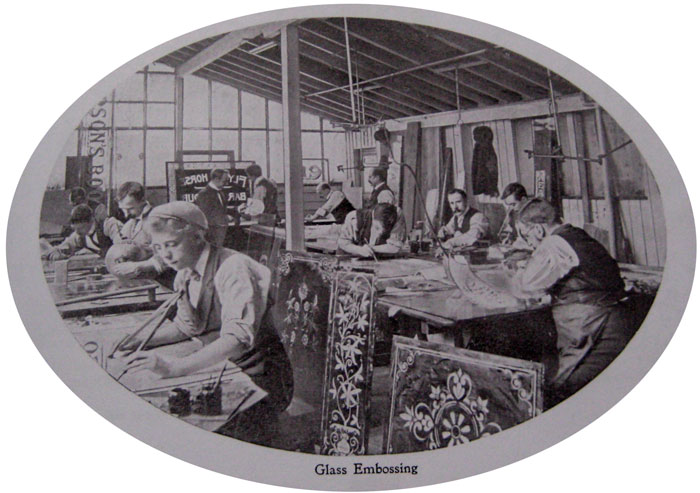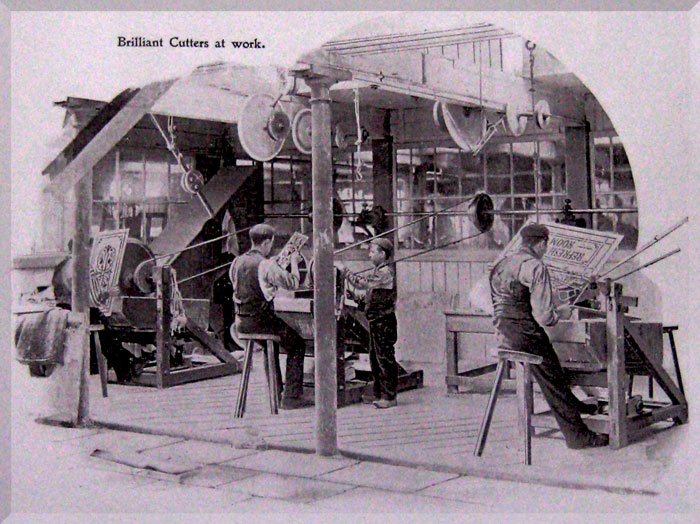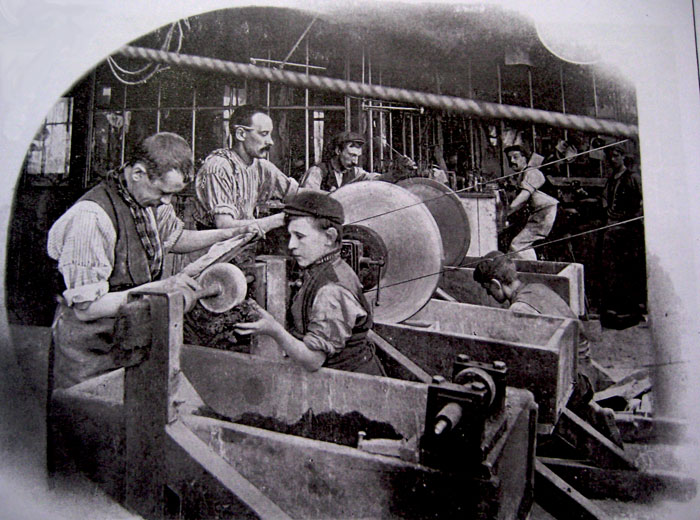
Brilliant Cutters 100 years ago
I seen these nostalgic images of Brilliant Cutting and Acid Etching in a book I recently bought. Thought you guy's may like to see them as I seen an earlier post on interests with cutting lathes. image 2 .The cutting benches are the same as the one I have and Stuart also has this setup, nothing seems to have changed except we have electricity to run the pullies. I would imagine the youg lads went on to be pretty dam good cutters they look like they were there to apply the polish for the wood wheels. Notice the cut lead ontop of the brunswick black in image 1 ready for embossing. image 3 is interesting as you can see the power for the shafts come off a main drive at the back ,i'm guessing this may have all been steam powered. Stuart would know alott more than me as he served his apprentiship in this trade with some old timers. Pat also has extended knowledge to what went on.
Hopefully they can cover the past and facts in these bygone pics a bit more than me. Dave
Do you notice that allmost every cutter has his little boy who's only task was keeping the wheel cool ad moist?
I think the kids were supposed to learn, learn and absorbe some more learning, just by looking, before being given the change to cut flat glass for himself.
I couldn't help but notice that in the second photo down (in Dave's post) the lathe in the foreground with the "sponge boy" has no power belt.
They must just be posing for the camera. The small belt pulley just next to the wheel has no belt, and I believe it would have run from the rear shaft
like my old Lange lathe does.
OH MY GAWD!! And did you get a load of the pair of eye glasses that the glass cutter is wearing in Erik's U Tube post. There must be a crystal vase's weight in glass in EACH lens!!
Looks like he has two little peas for eyes. You could find the belly button on an ANT with those puppies!!
Loved the photos Dave. I see the one man cutting away at what appears to be "refreshment Room" I also wanna know how come the "Gents" in the cutting room Pat mentions aren't wearing proper attire? Slovenly Englishmen!! The old fella I spent so many years with always wore a tie and vest to work. Maybe not so often in the last years but it speaks volumes about the times we live/lived in.
Thanks Robert. They certainly were creating some incredible glass panels ,and from the look of some of the detail in the original panels around London that I have seen ,they still probably created them quickly by a means of different departments working on seperate treatments. If only I could have a workforce that did that.